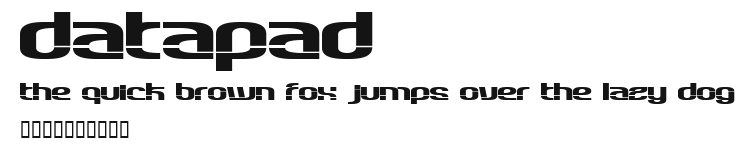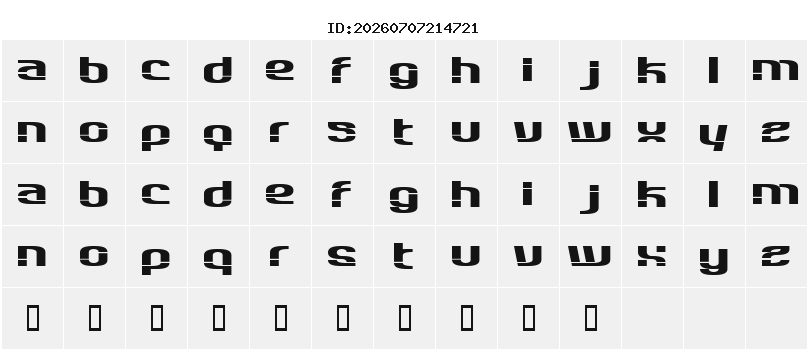
• Font Name: Datapad
• Full Font Name: Datapad
About Datapad.ttf
Datapad.ttf is a modern, elegant sans-serif font designed for ultimate readability and visual harmony. Perfect for branding, headlines, web design, and print materials.